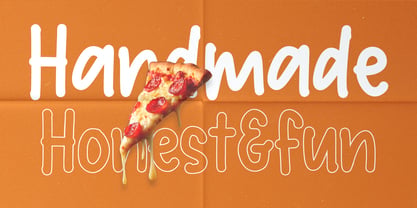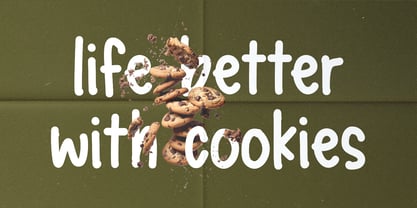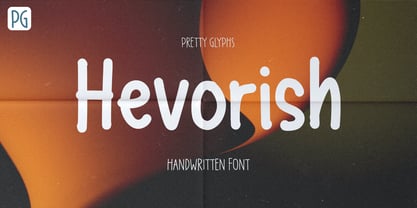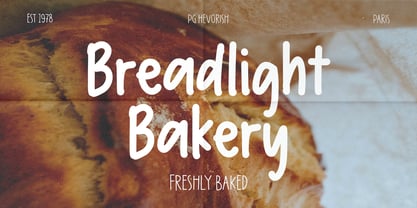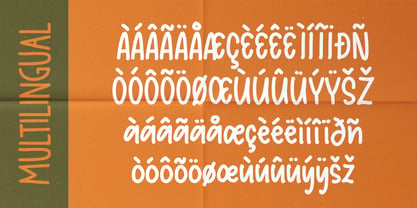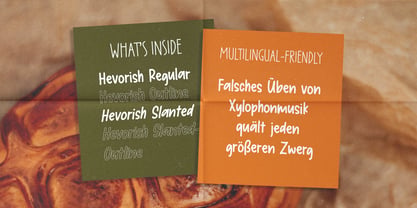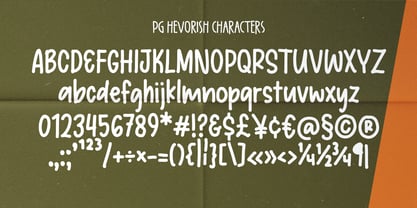
PG Hevorish
by Pretty Glyphs
The PG Hevorish Font Family was designed by Ulfa Tiara Putri and published by Pretty Glyphs. PG Hevorish contains 4 styles and family package options. More about this family
PG Hevorish is a playful handwritten font with a natural, friendly feel and smooth, rounded strokes. Designed to bring a casual yet charming personality, it works perfectly for branding, quotes, packaging, and creative projects. Comes in four versatile styles—Regular, Slanted, Outline, and Slanted Outline—giving you flexibility to mix, match, and create eye-catching designs with ease.
Designers: Ulfa Tiara Putri
Foundry: Pretty Glyphs